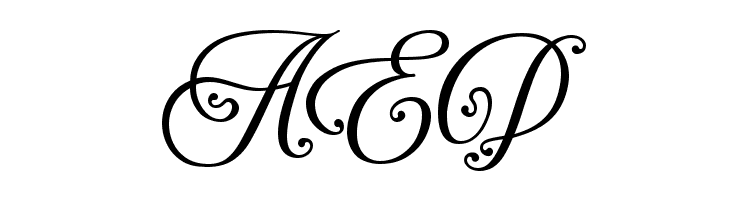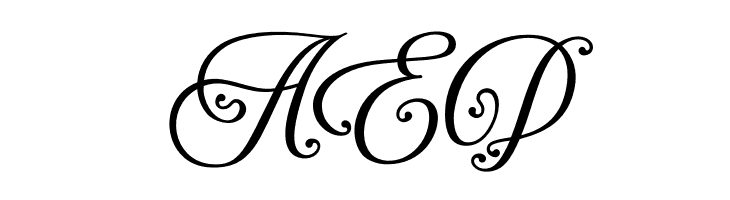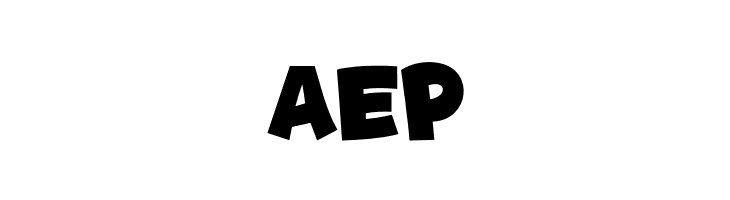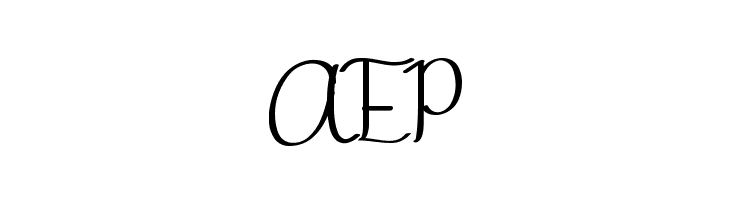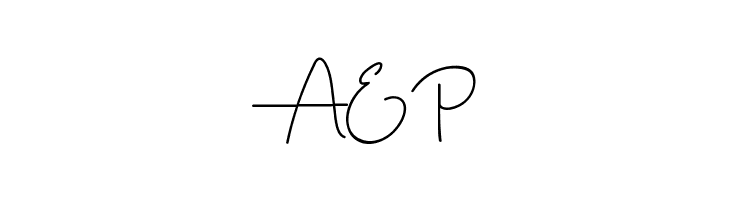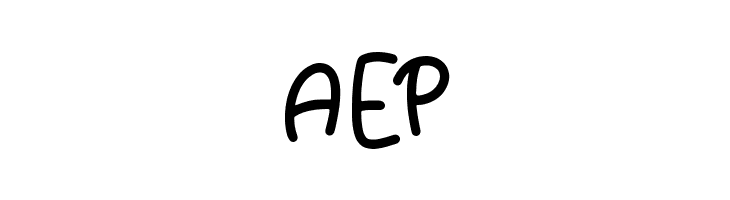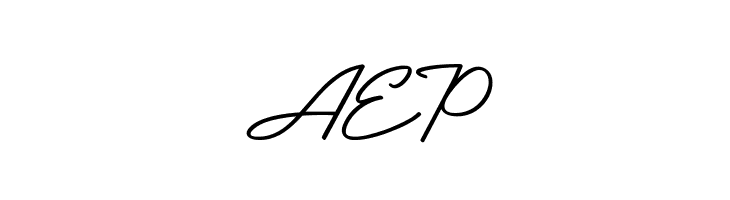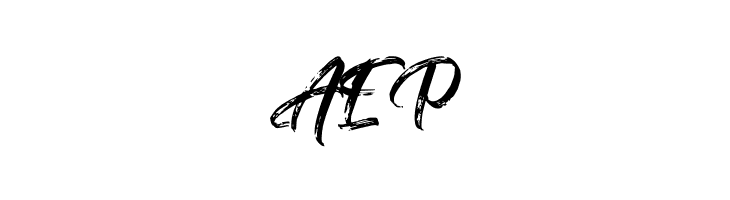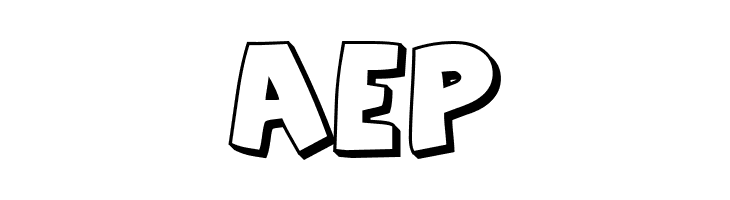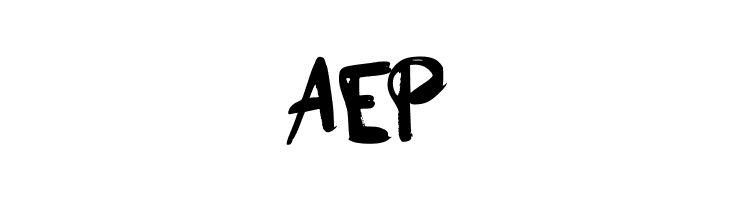
A bold, playful font with chunky, whimsical characters.
An elegant script font with high contrast and flowing curves.
A bold, expressive handwritten font with brush-like strokes and dynamic forms.
A bold, expressive handwritten font with dynamic strokes.
An elegant and sophisticated script font with decorative flourishes.
An elegant script font with ornate swirls and decorative flourishes.
A playful, polka-dotted font with a bold, three-dimensional style.
A playful, bold, and outlined font with a cartoonish style.
A bold, playful font with a 3D shadow effect, perfect for eye-catching designs.
A modern, geometric font with clean lines and balanced proportions.
A modern, geometric font with clean lines and uniform stroke width.
A bold, modern sans-serif font with clean lines and rounded edges.
A bold, modern sans-serif font with a geometric structure.
A bold, modern sans-serif font with geometric lines and strong readability.
A modern, geometric sans-serif font with clean lines and balanced spacing.
A modern, geometric sans-serif font with a clean and balanced design.
A clean, modern sans-serif font with a semi-bold weight and balanced design.
A sleek, modern font with thin lines and geometric shapes.
An elegant, flowing script font with decorative swashes and balanced strokes.
A bold, expressive brush script font with dynamic strokes and a handcrafted feel.
A bold, brush-style font with dynamic, textured strokes.
A playful, handwritten font with smooth, rounded strokes and a casual style.
An elegant, flowing script font with graceful curves and decorative flourishes.
A bold, handwritten font with dynamic strokes and a lively appearance.
A modern, angular font with a futuristic and edgy design.
A futuristic outline font with sharp angles and geometric forms.
Abstract, organic shapes with dynamic lines and high contrast.
A modern, geometric font with a sleek and minimalist design.
A sleek, modern font with geometric and minimalist design.
A whimsical and artistic script font with flowing, cursive forms.
A graceful and elegant script font with flowing, interconnected letters.
A modern, geometric sans-serif font with a sleek and minimalist design.
A modern, geometric font with clean lines and a minimalist style.
A sophisticated handwritten font with fluid, continuous strokes and dynamic contrast.